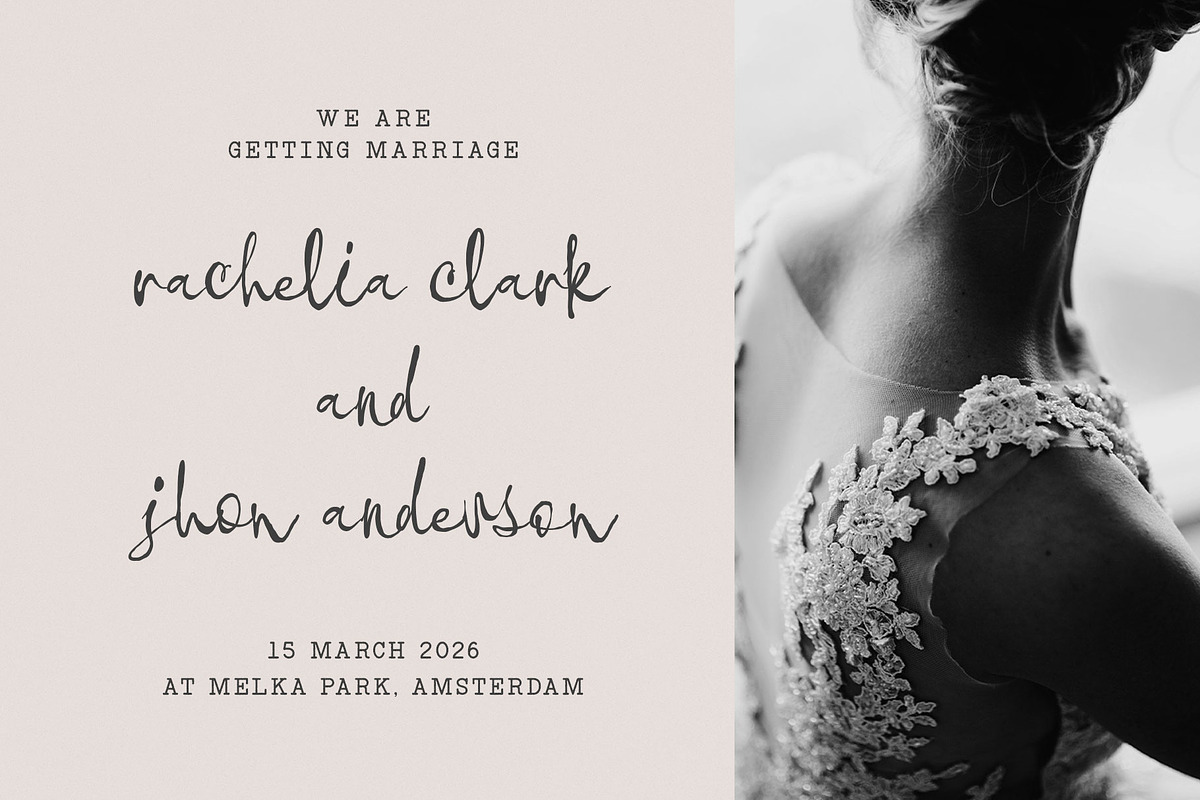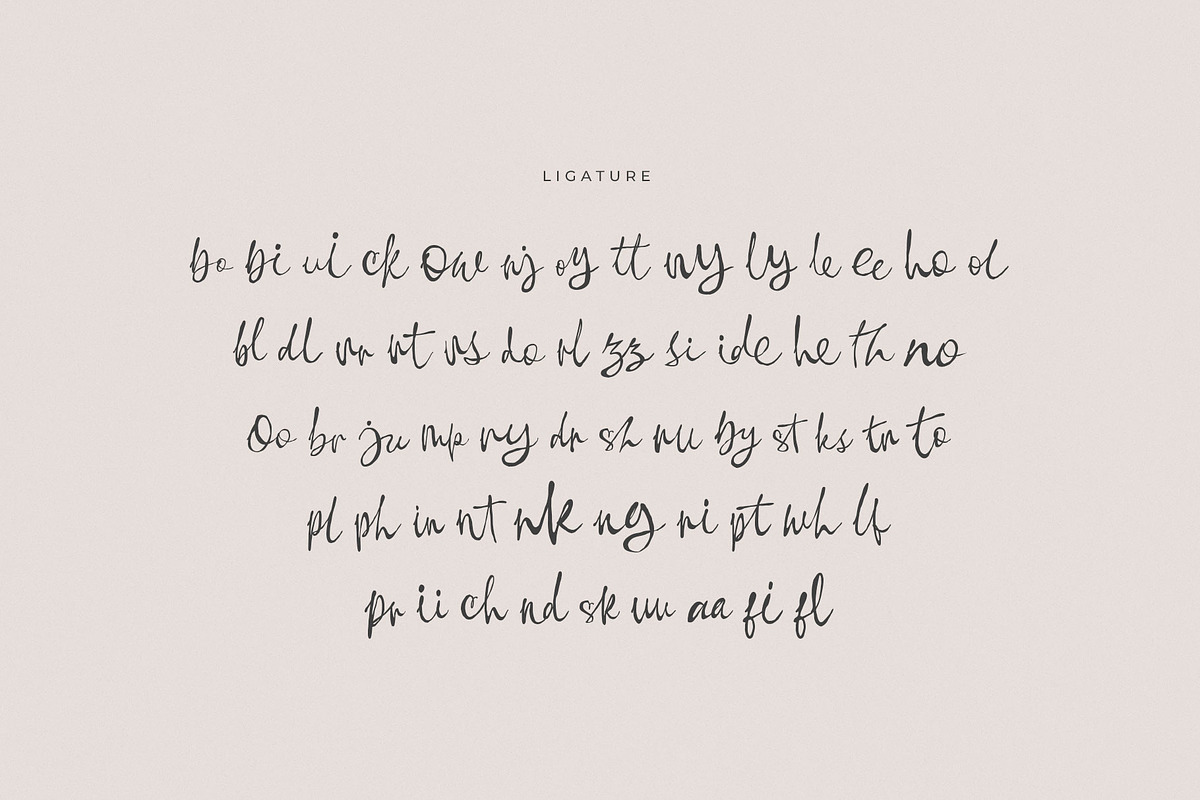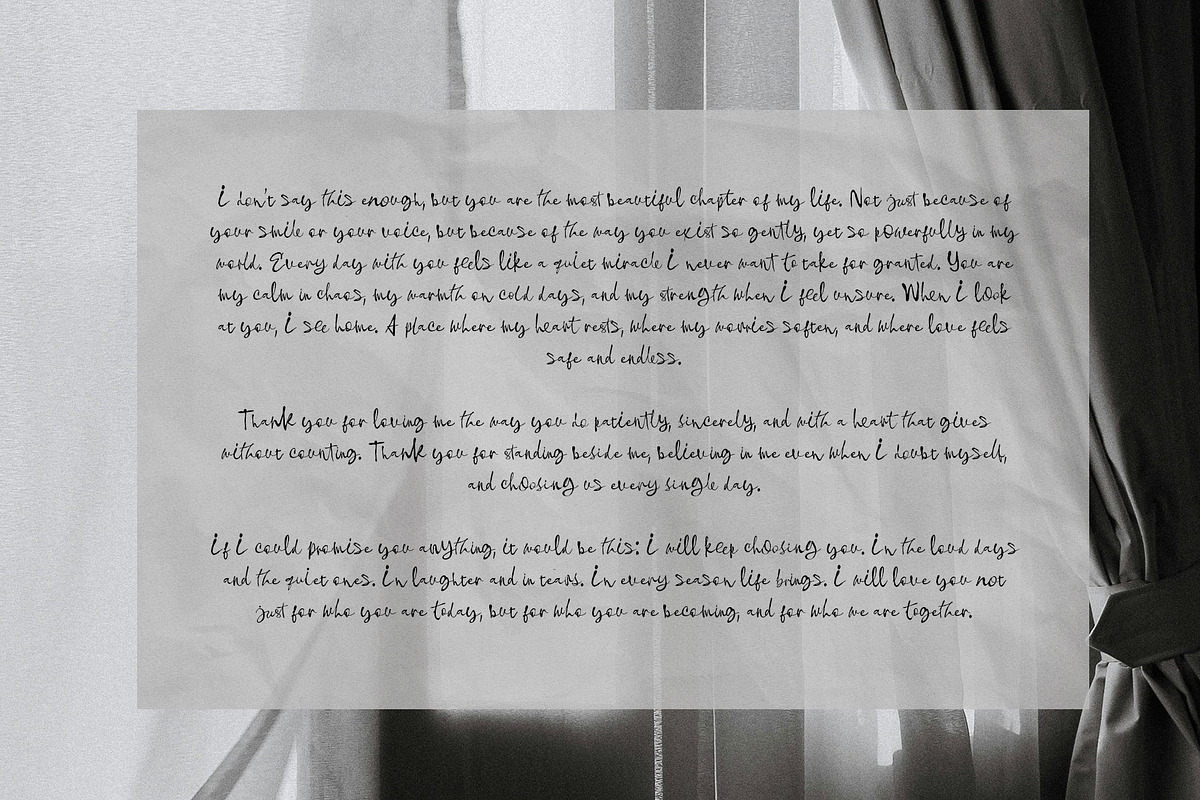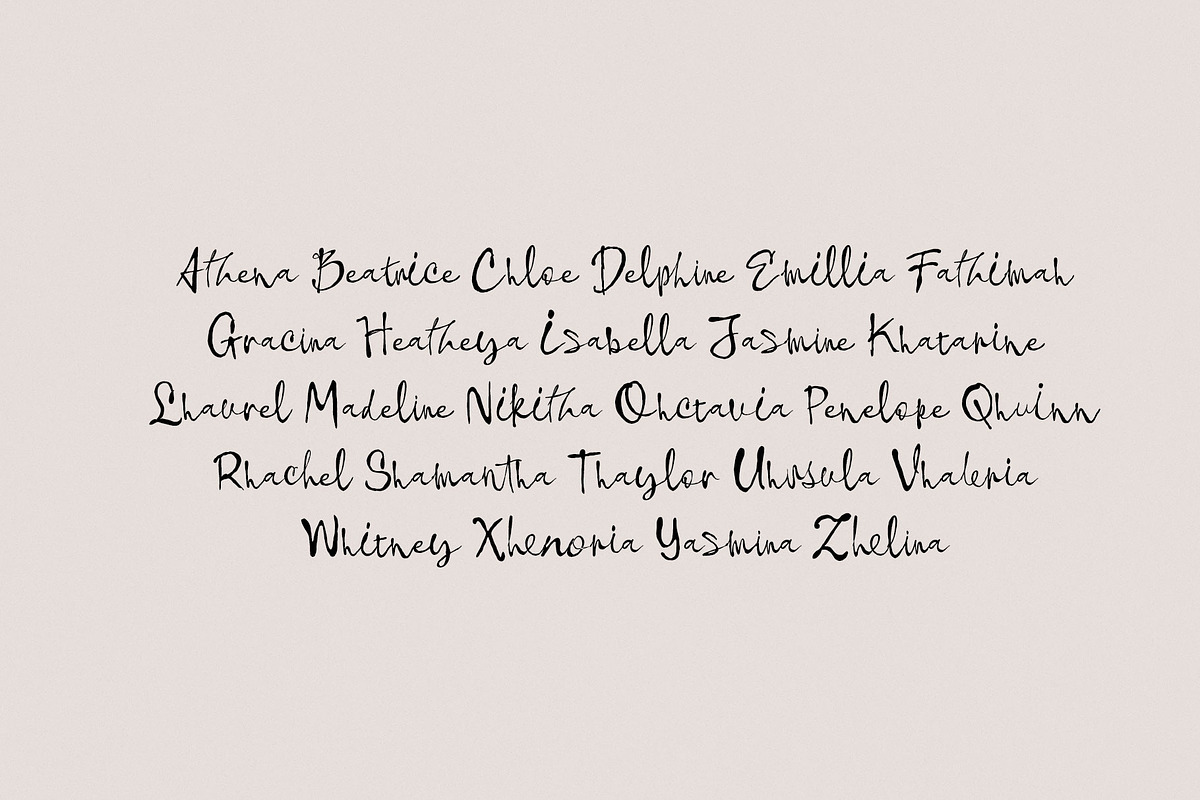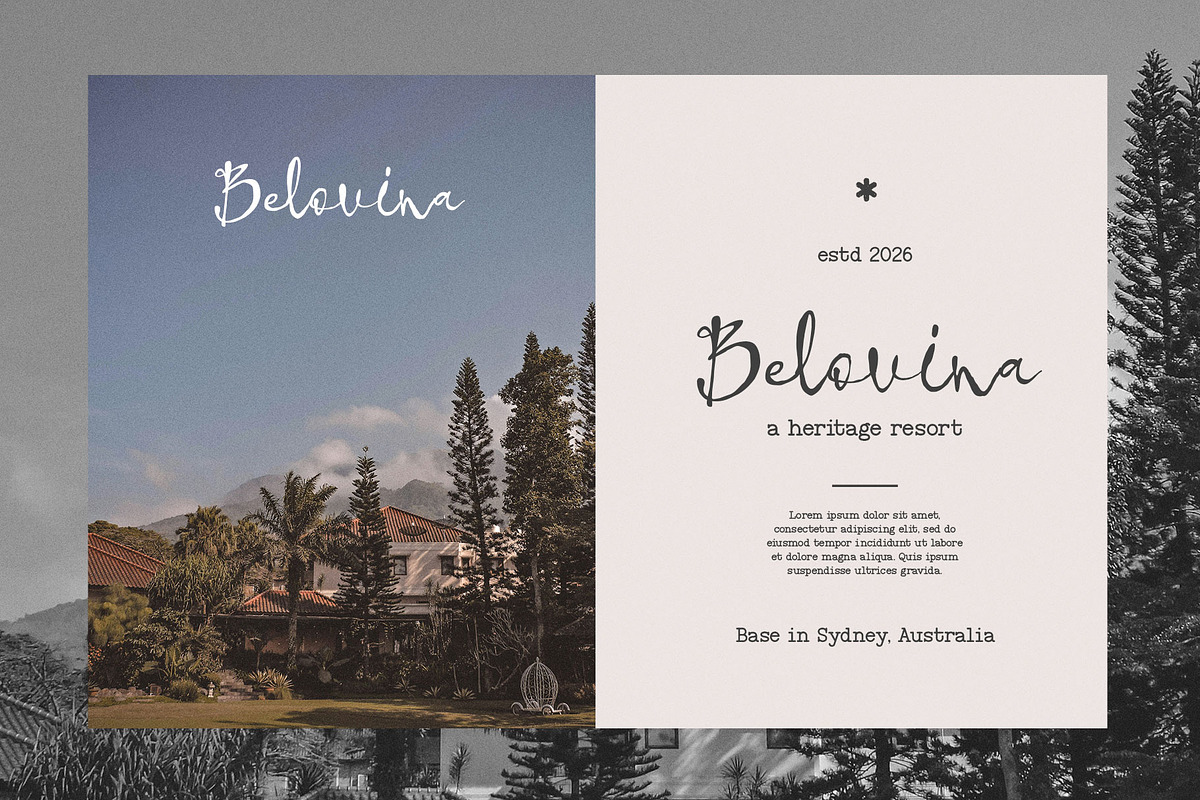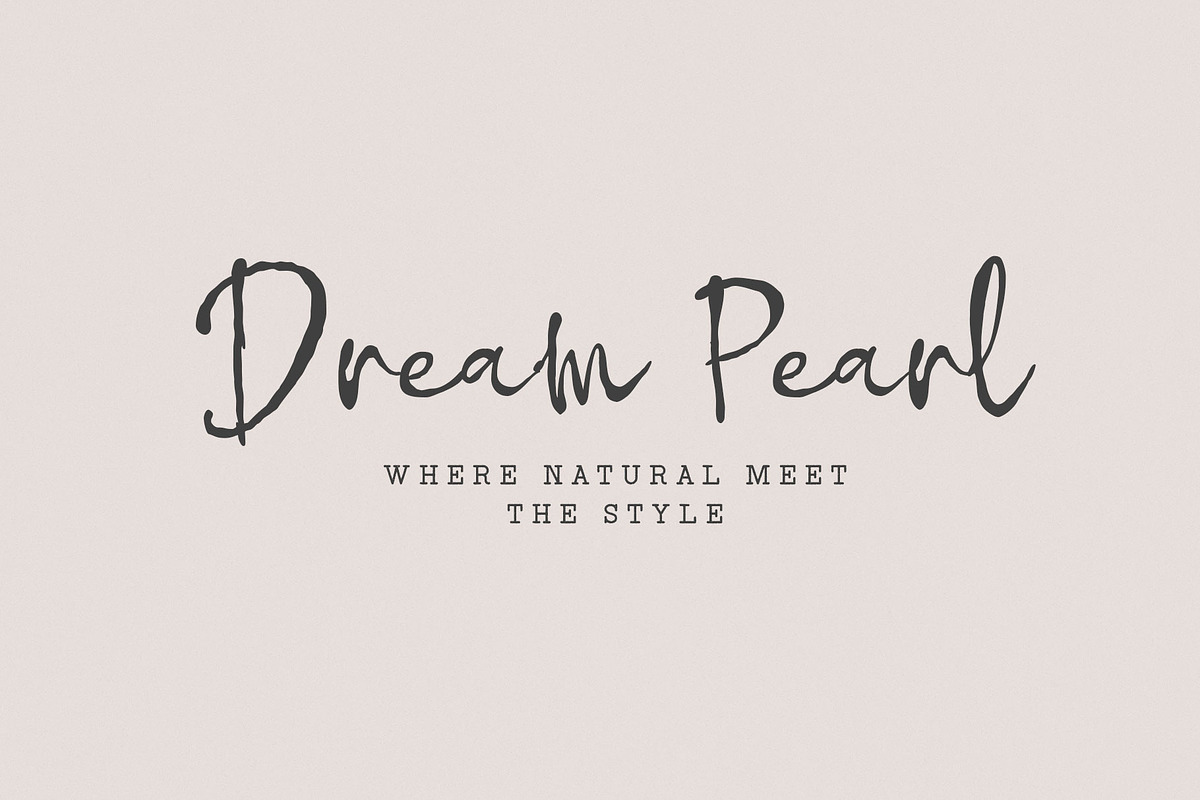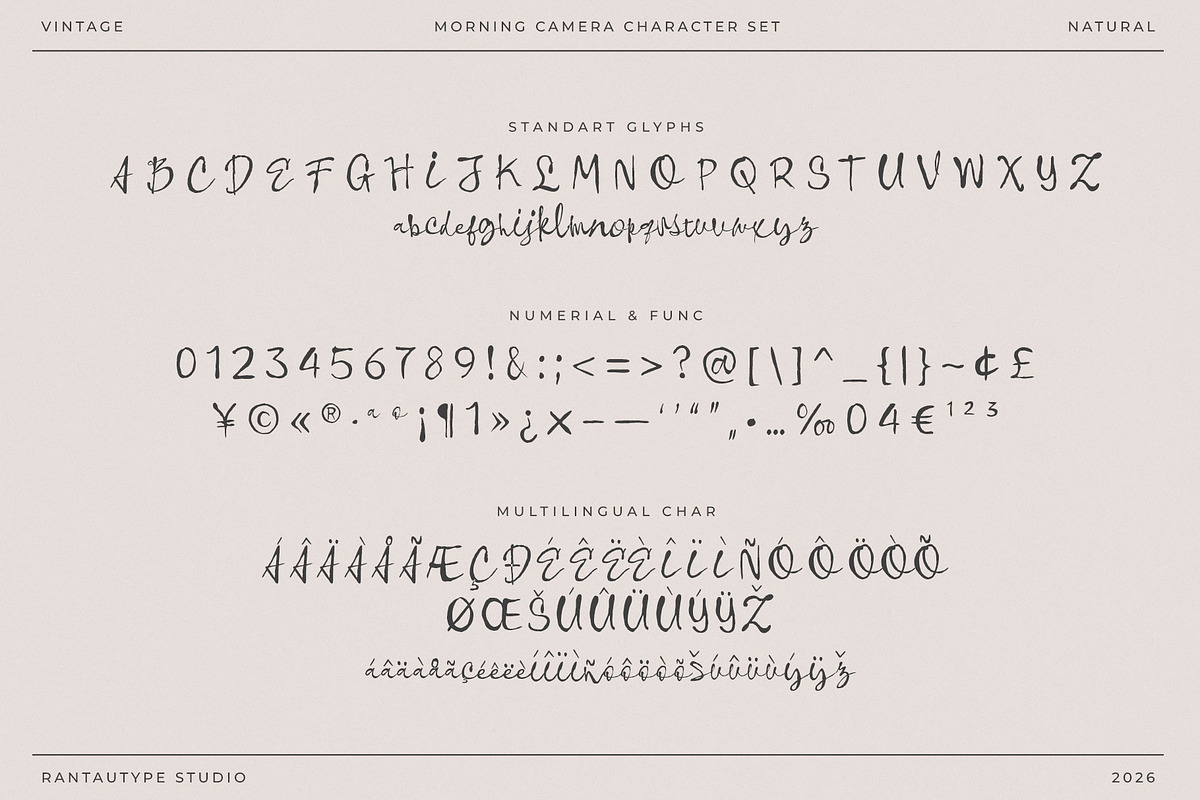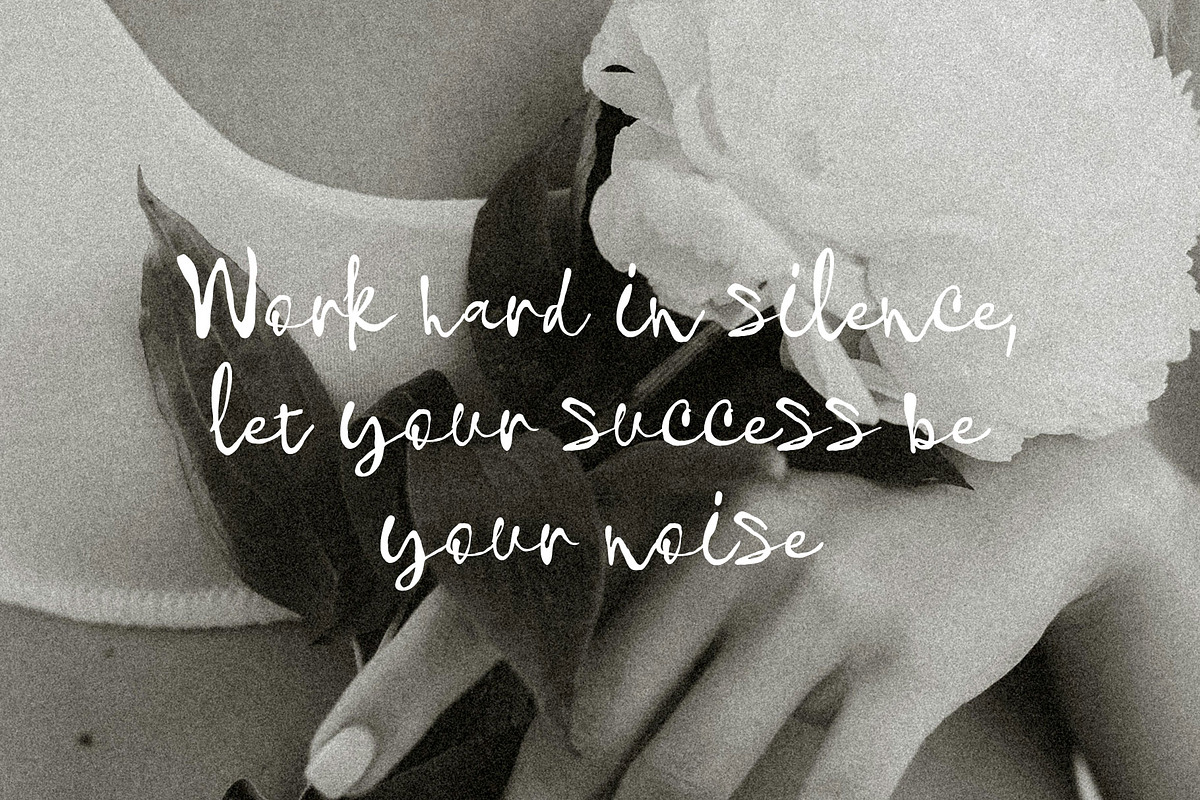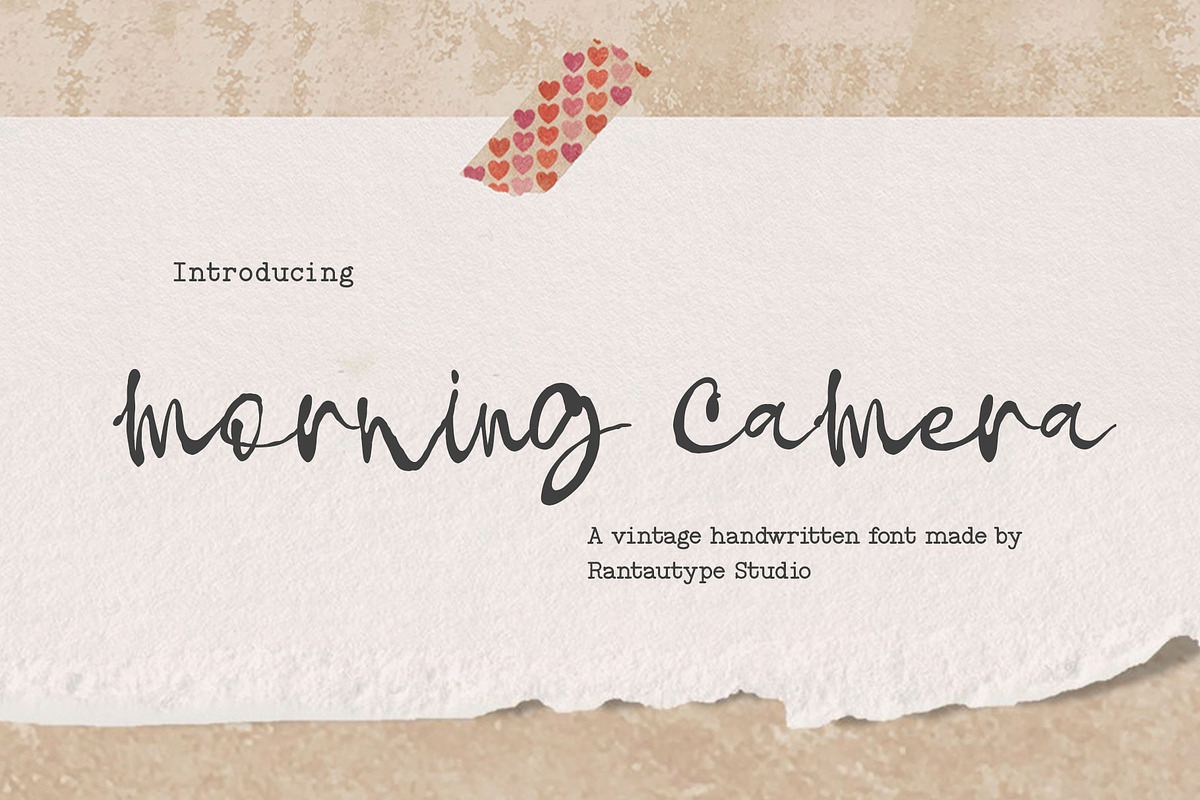
Morning Camera Natural Handwritten
Morning Camera is vintage natural font inspired by handwritten notes, old shop signs, and the warm texture of paper aged by time, this style carries the soul of something made slowly and with care.
Morning Camera is a perfectly choice for any creative endeavor, creating, modern, lifestyle design such as logotype, title, cover, branding, invitations, wedding designs, display and magazine, social media posts, advertisements, printed quotes, product packaging, corporate brand, product designs, labels, photography, watermarks, special events and any other project with vintage touch.
- Standart Glyphs
- Alternate and ligature
Fonts include Multilingual Character for: Afrikaans, Albanian, Asu, Basque, Bemba, Bena, Breton, Chiga, Cornish, Dutch, English, Estonian, Filipino, Finnish, Friulian, Galician, Gusii, Indonesian, Irish, Italian, Kabuverdianu, Kalenjin, Kinyarwanda, Luo, Luxembourgish, Luyia, Machame, North, Oromo, Portuguese, Quechua, Romansh, Rombo, Rundi, Rwa, Samburu, Sango, Sangu, Scottish, Gaelic, Sena, Shambala, Shona, Soga, Somali, Spanish, Swahili, Swedish, Swiss, German.